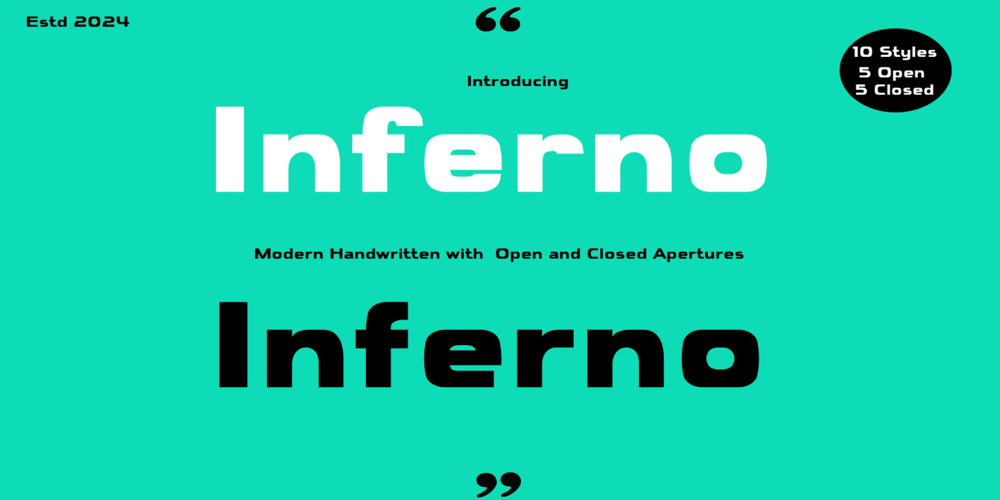
Inferno Family Font Family was designed by A. Pat Hickson and published by Adita Fonts. Inferno Family contains 4 styles and family package options. Inferno Font Family is an authentic and unique modern sans-serif font family that is perfect for professional and product branding needs. This font is suitable for any branding project such as quotes, logos, blog headers, posters, ribbons, letters, invitations, stationery, etc…